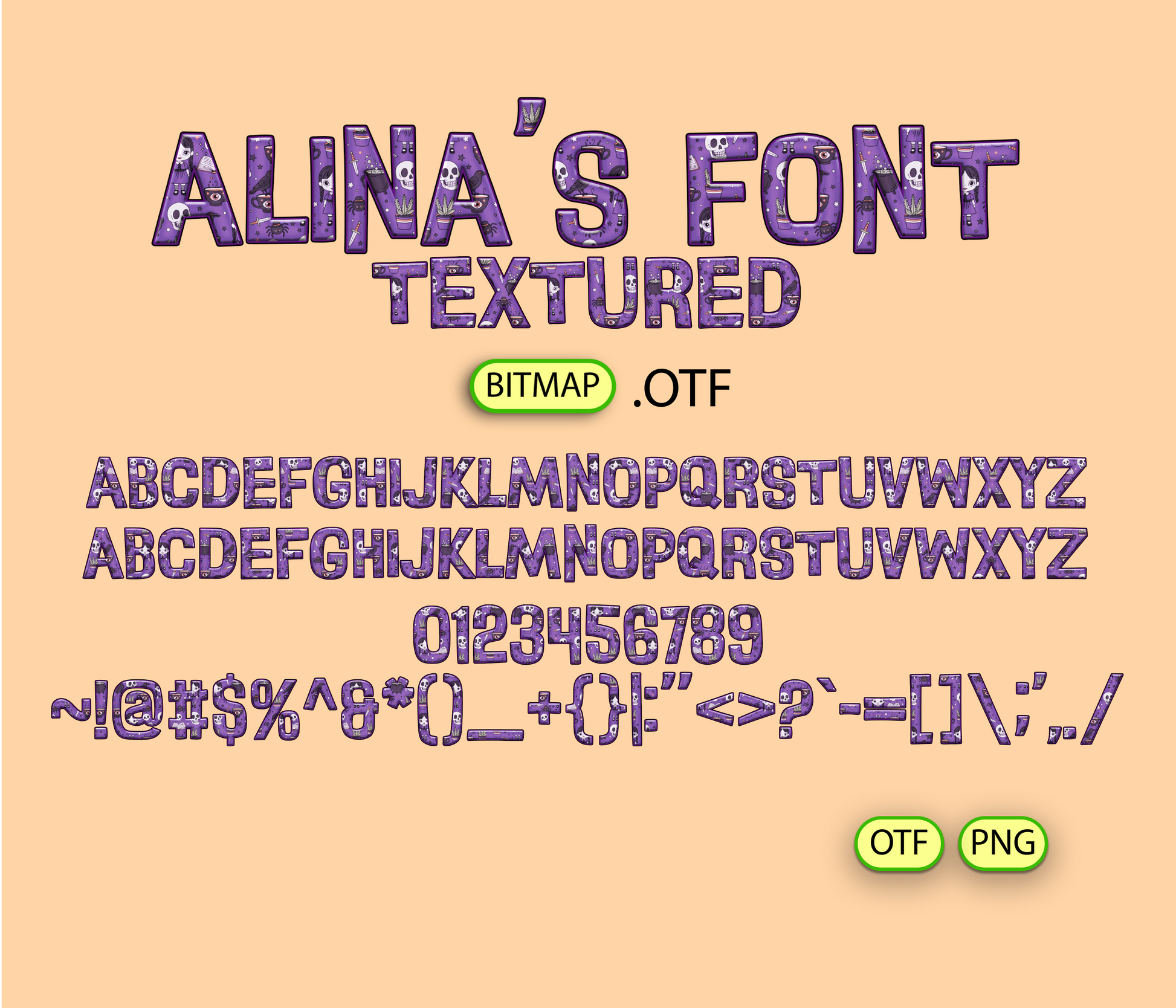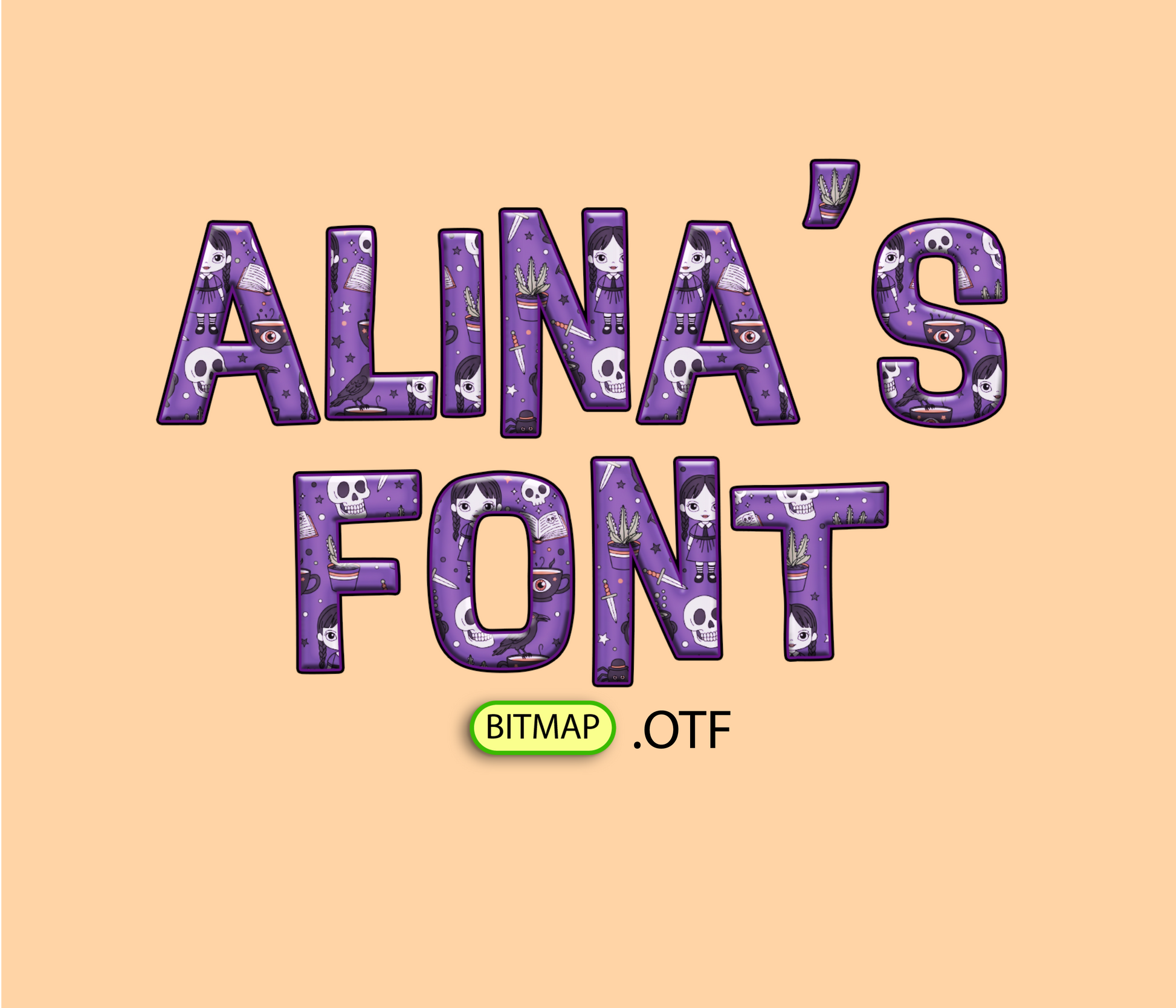
FREE Halloween Cute Skull Pattern Font
Step into the whimsical world of spooky celebrations with our Halloween Cute Skull font, capturing the essence of adorable skeletons and playful hauntings. Perfect for Halloween enthusiasts, party planners, event organizers, and designers, this font brings the charming, fun spirit of cute spooky characters to your projects. Create delightful materials, merchandise, or digital content with the playful energy of sweet skeleton festivities.
Our Halloween Cute Skull font features playful, bone-inspired lines and adorable characters reflecting the world of charming Halloween celebrations. Ideal for:
- Event Promotions: Create fun invites, posters, and banners for Halloween parties, trick-or-treat events, and costume celebrations that capture the spirit of cute spooky fun
- Merchandise Design: Perfect for t-shirts, posters, and accessories that showcase the adorable aesthetic of playful skeletons and sweet Halloween characters
- Digital Media: Enhance websites, blogs, and social media with cheerful headers and graphics that express the charm of cute spooky celebrations
- Halloween Content: Add authentic flair to party decorations, seasonal projects, and creative designs inspired by adorable skeleton themes
- Personal Projects: Bring delightful excitement to scrapbooking, DIY crafts, and home decor inspired by the world of cute Halloween festivities
Our font pays tribute to the iconic world of playful Halloween celebrations, empowering your designs with its charming and whimsical spirit. Whether crafting promotional materials, designing merchandise, or adding a cute spooky touch to personal projects, this font communicates the delightful essence of adorable skeleton fun. Ready to inject sweet Halloween magic into your creations? This font is your key to exciting, impactful design.